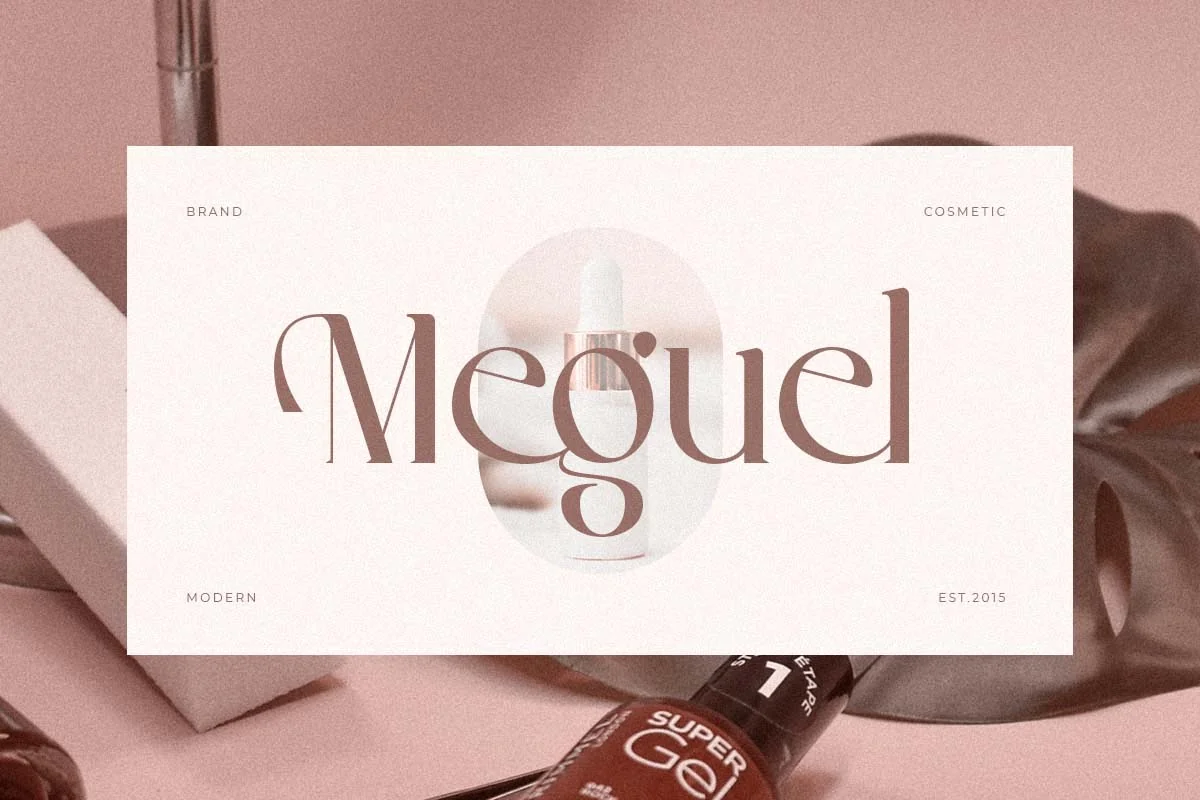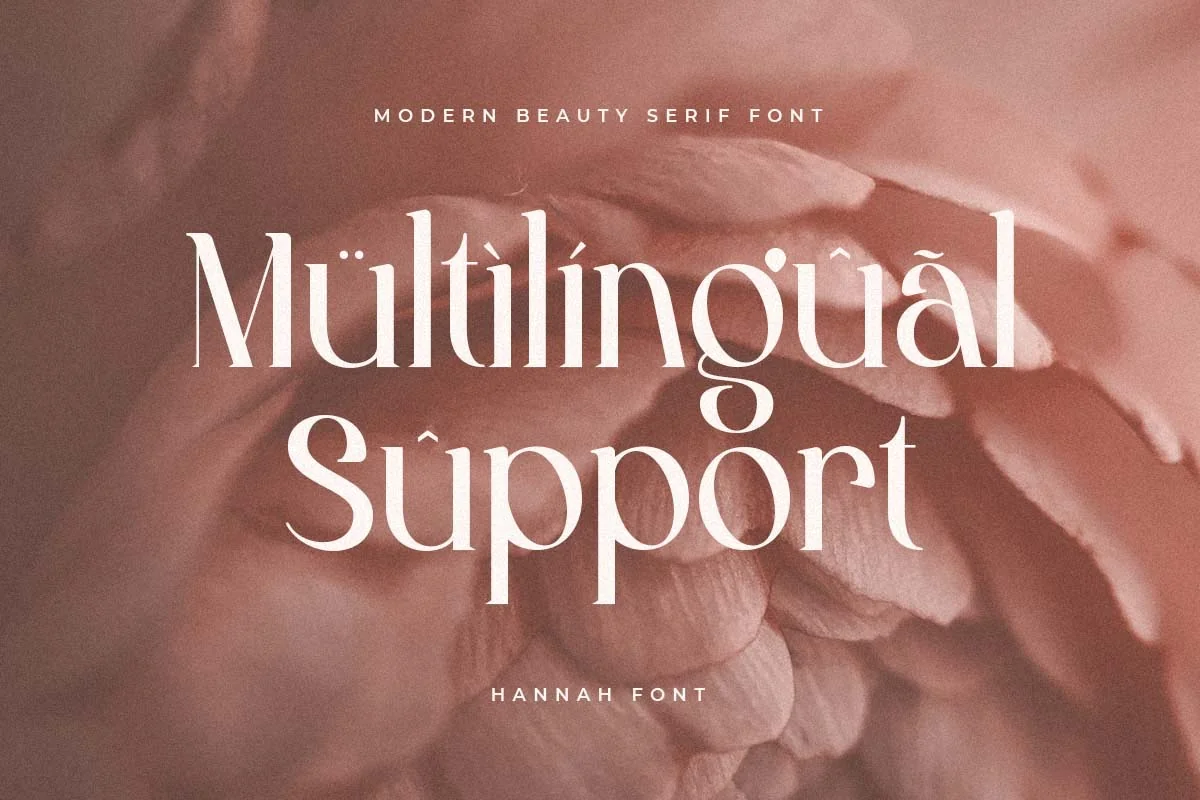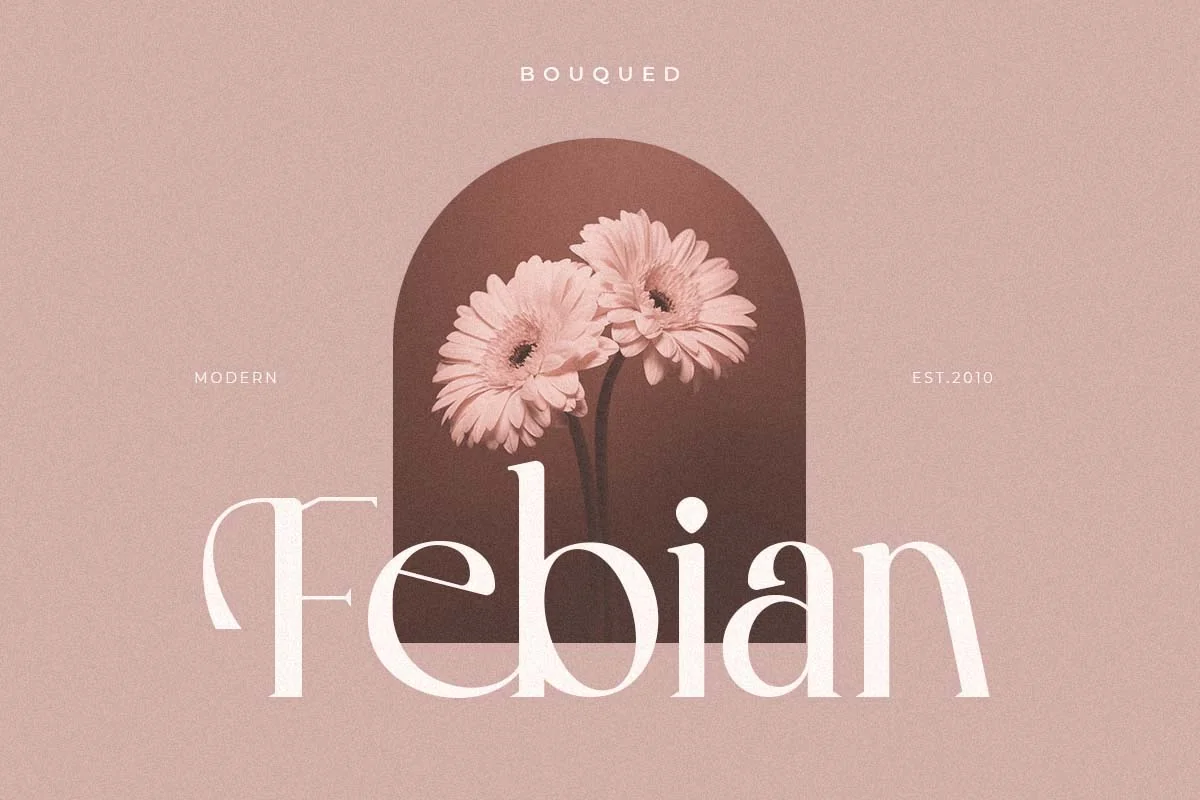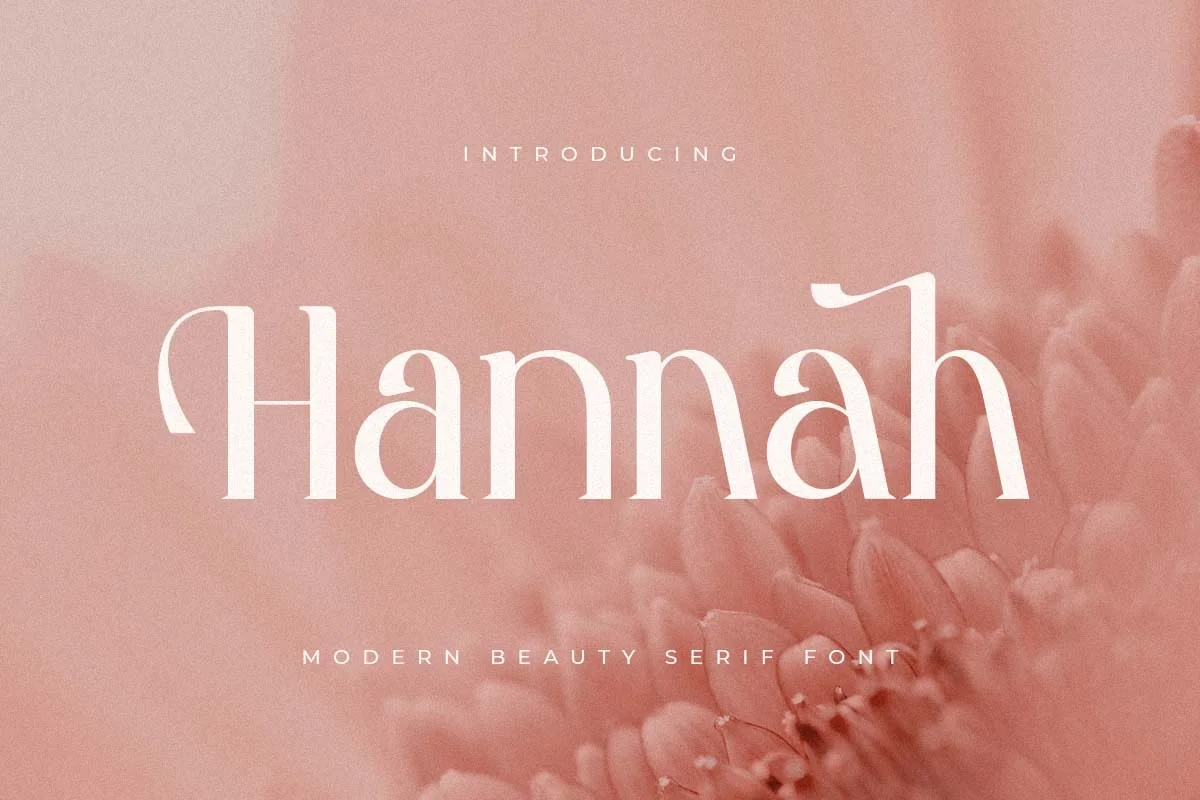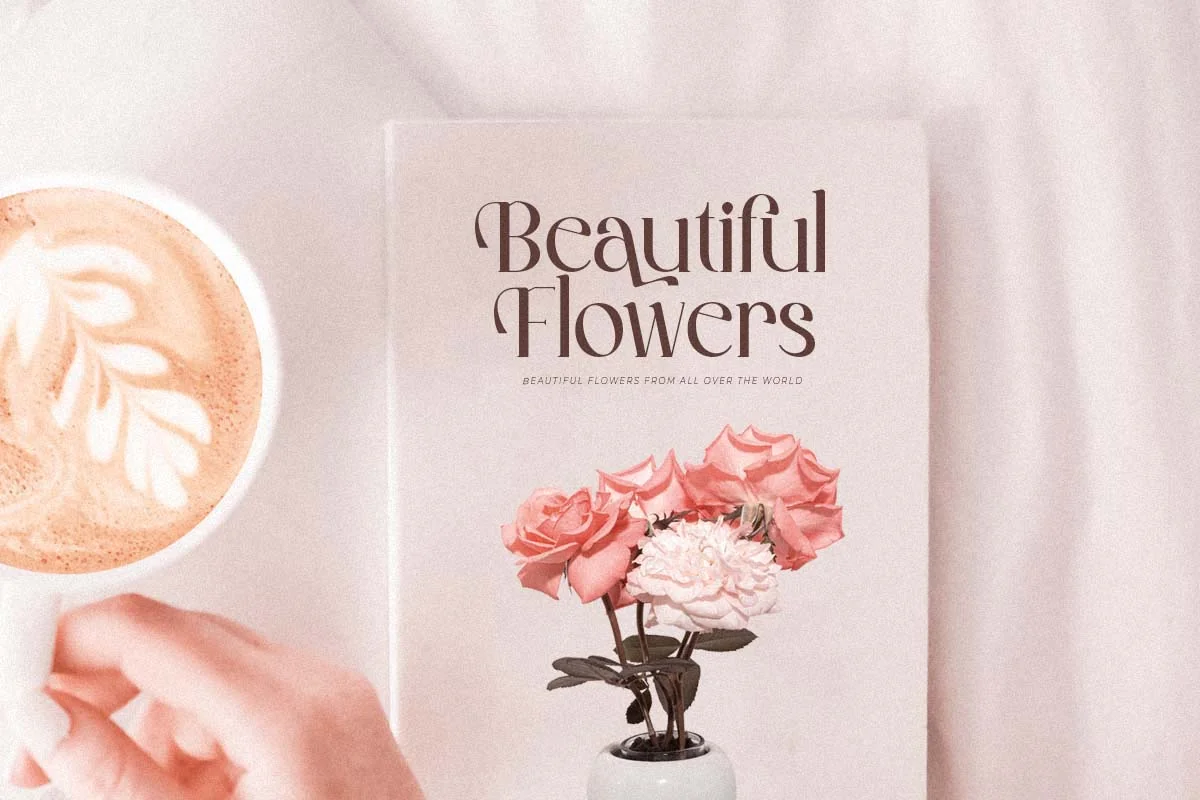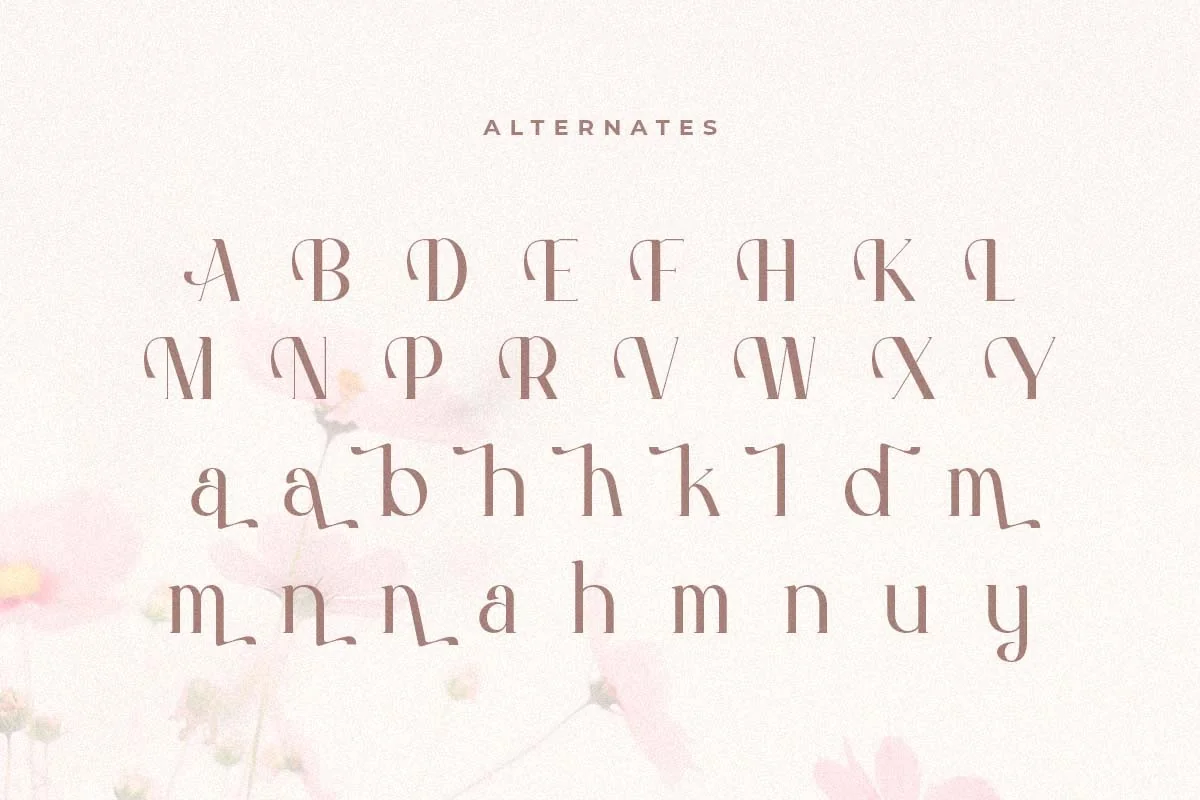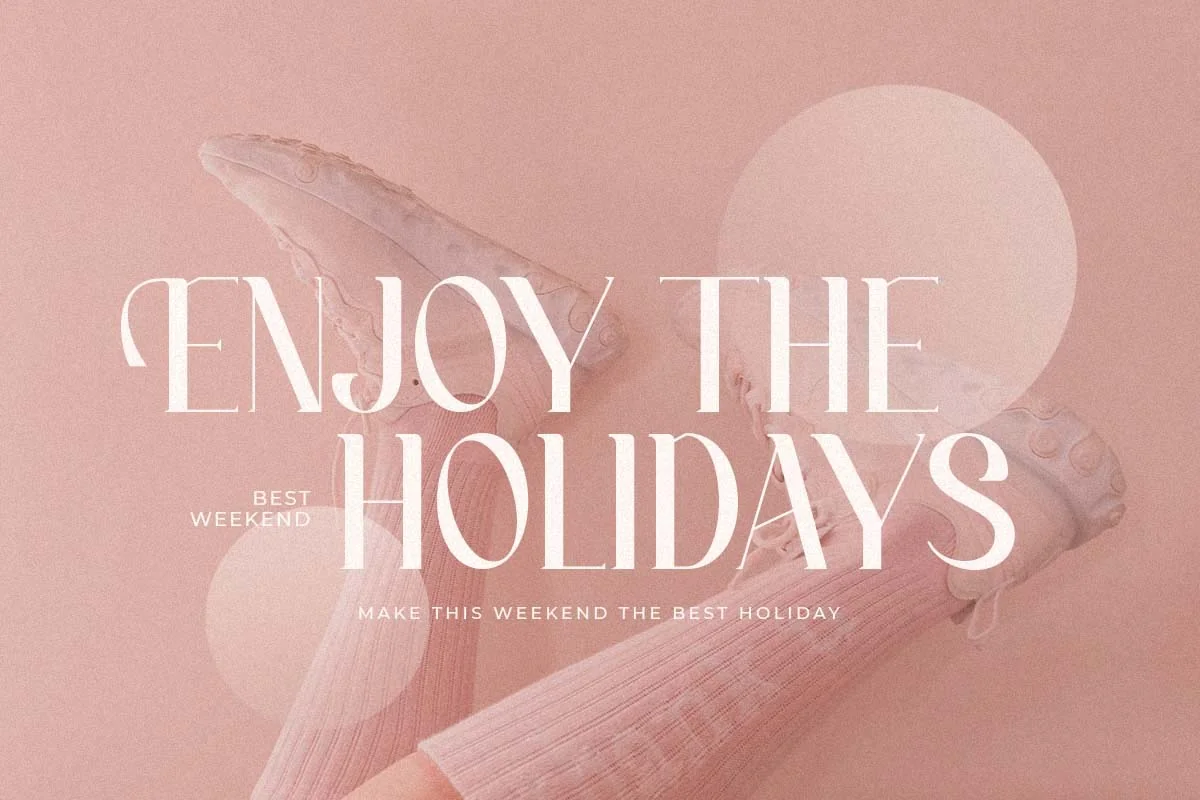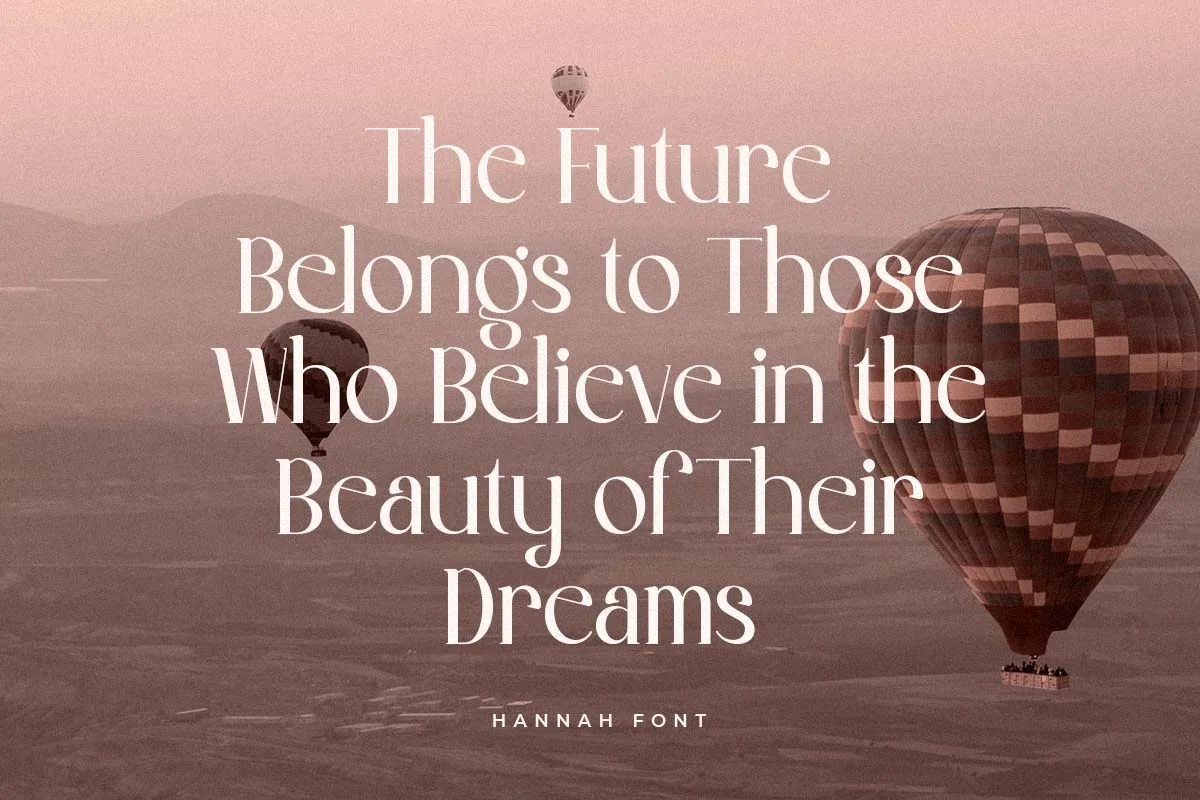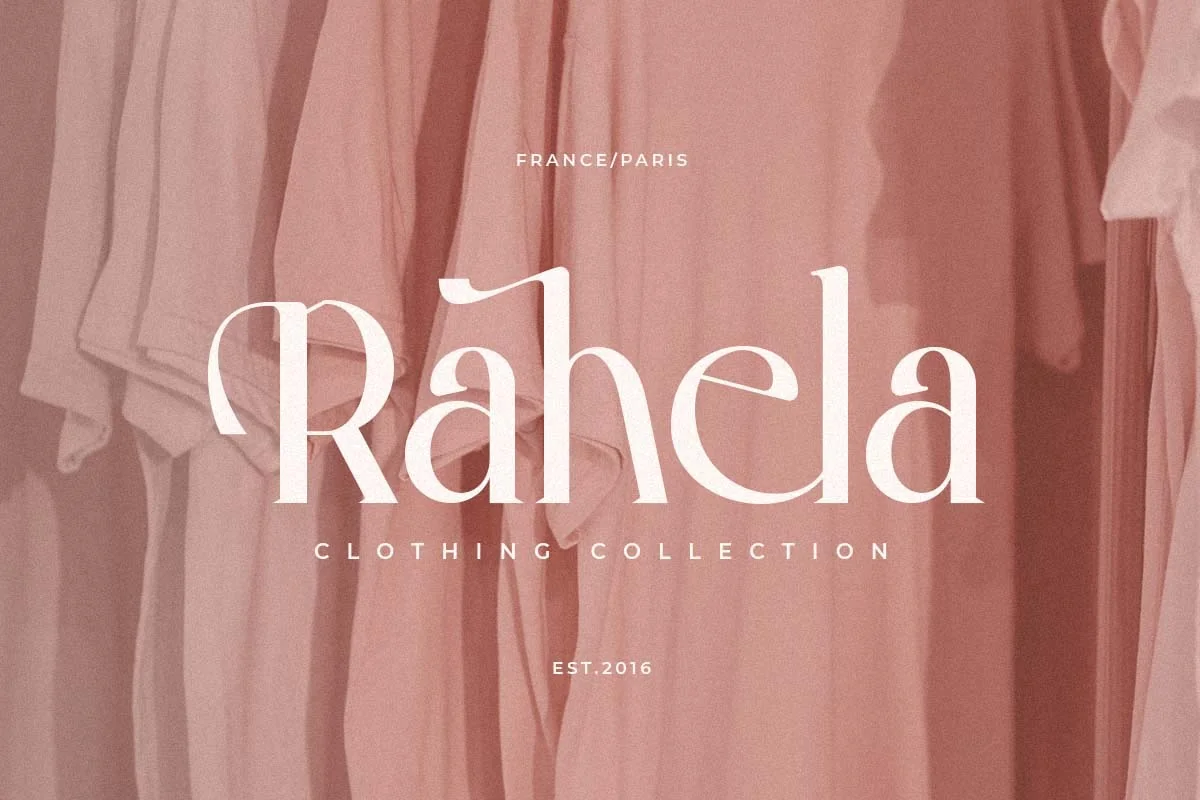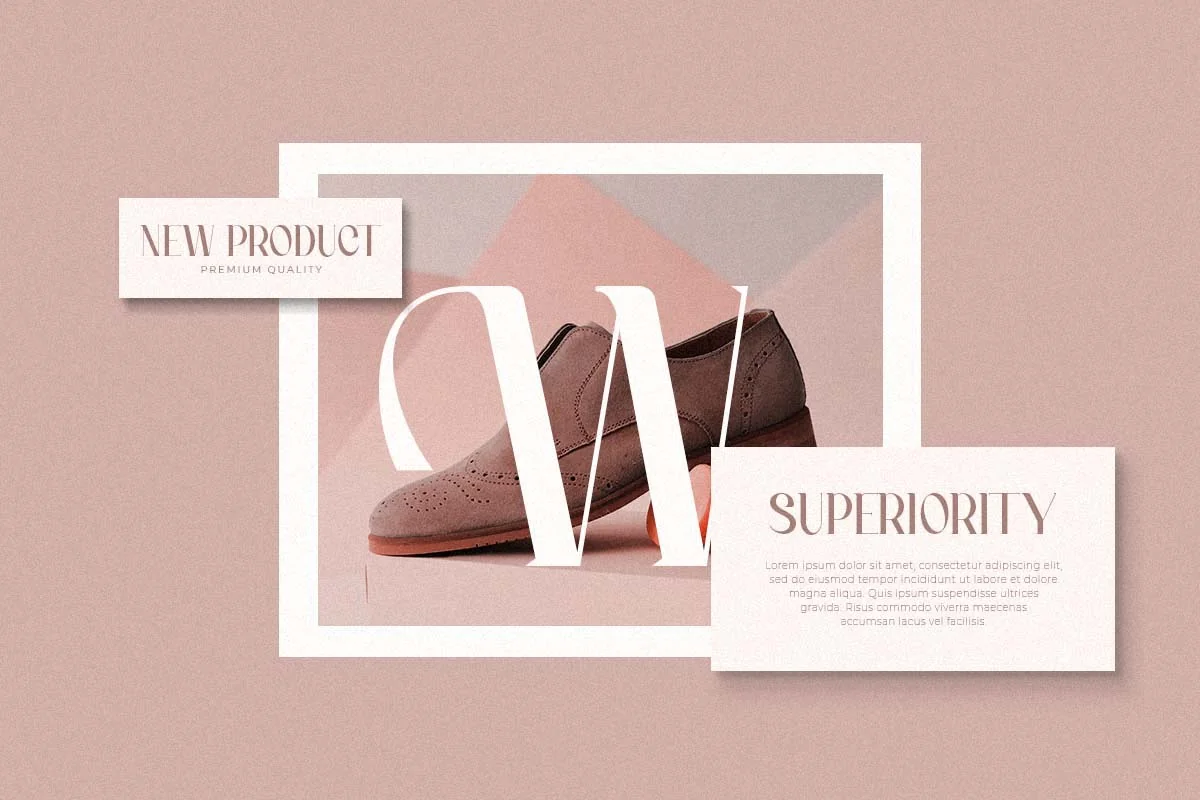
Hannah – Cute Serif Font
Hannah is a Cute Serif Font
A new Serif font that we created special for logo and branding needs, with extra unique shape that will add your brand value. It so nice to leverage designer or product owner that need solutions to make their design look more gorgeous and modern. And specially for Hannah font, We prepared any alternate characters to help you create unlimited variations for your creative needs specially for logotype or wordmark.
Hannah Cute Serif font ready with:
- Any options to get creative variations (combination of Alternates)
- Ready with Lowercase and Uppercase characters